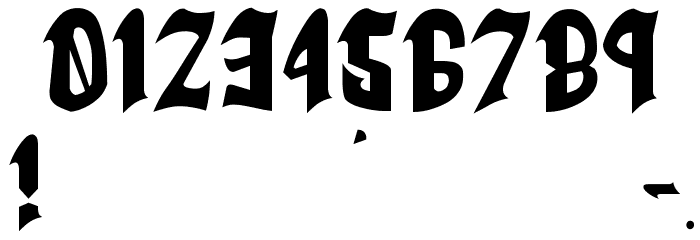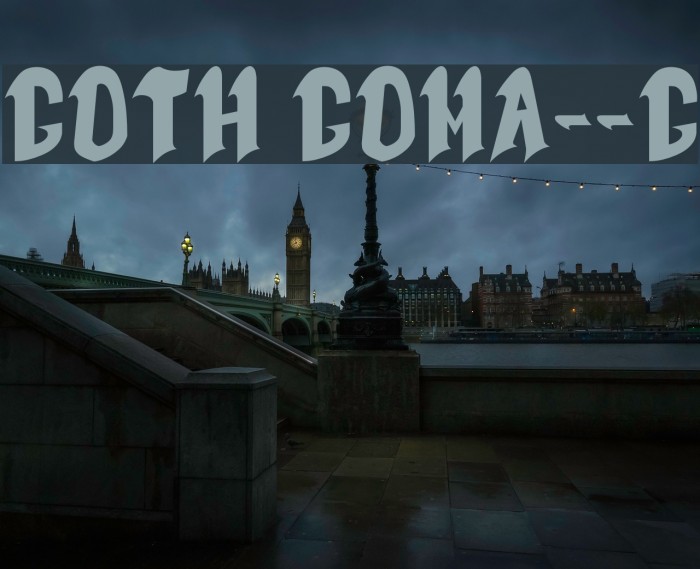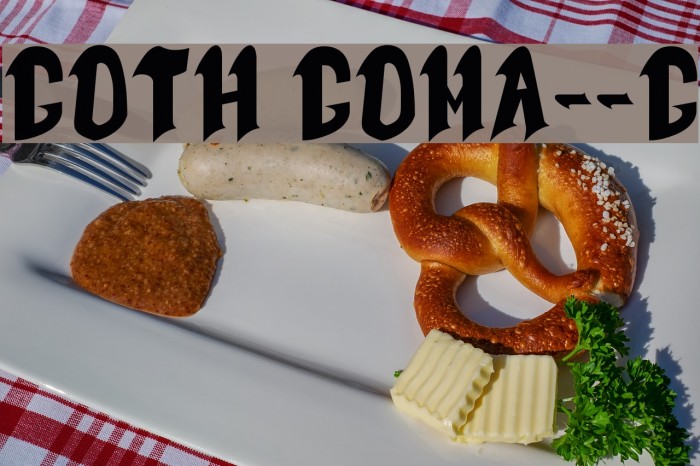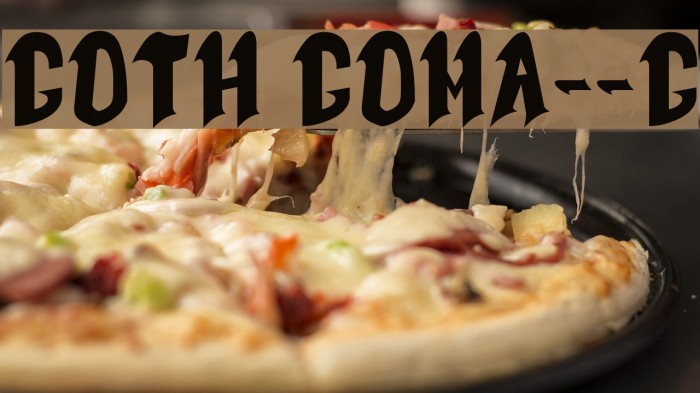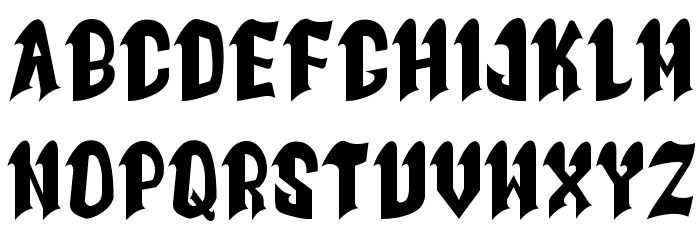
Goth Goma__G Font
This font features a bold, dramatic style with sharp, angular edges and a distinct Gothic influence. The characters are heavily stylized, with strong vertical strokes and intricate detailing that give it a medieval, old-world feel. The uppercase letters are particularly striking, with elaborate serifs and a sense of grandeur. The numerals and special characters maintain this ornate style, ensuring consistency across all glyphs. This font is designed to capture attention and convey a sense of historical or fantasy-themed aesthetics.
A bold, Gothic-inspired font with sharp, angular edges and intricate detailing.
• Proposed Projects: Ideal for use in fantasy-themed projects, historical event posters, video game titles, or any design requiring a dramatic, medieval touch.
• Category: Blackletter
• Overall Style: Vintage
• Use Case: Headlines, Logos